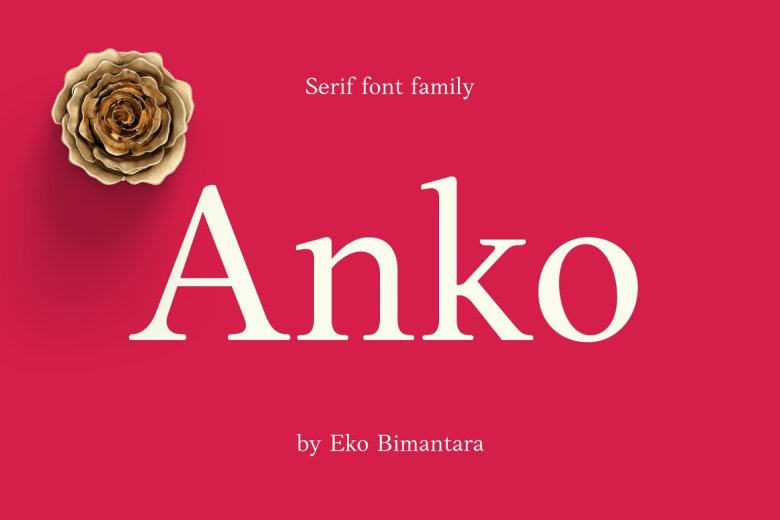
Anko Font
Anko is one of the font style from mixed type Old Style Roman. To achieve clarity, clear text colourability and warm personality — the glyphs were formed in extend width, smooth strokes of moderate stem contrast with soft edges. italic with degrees low slanted and redrawned lowercase expresses a flowy more organic forms.
Anko Serif Font Family